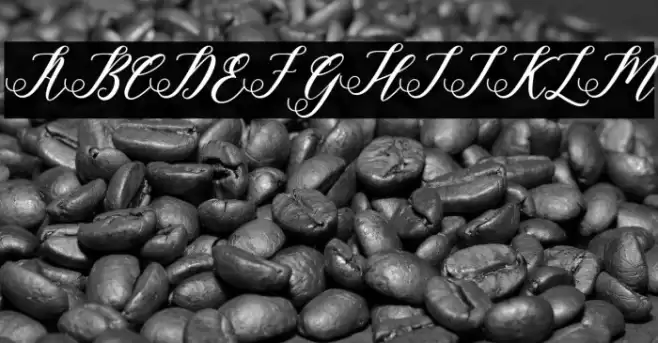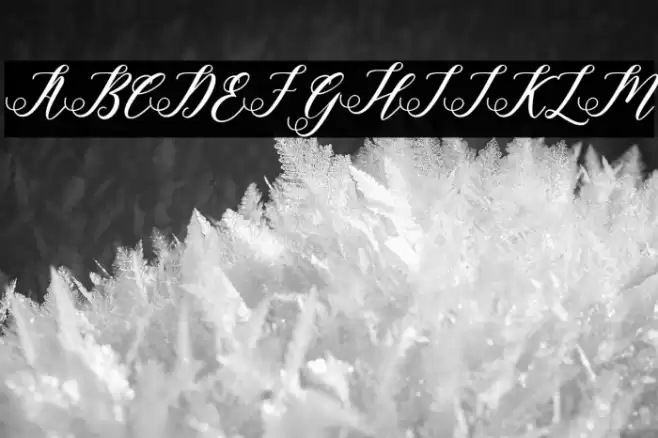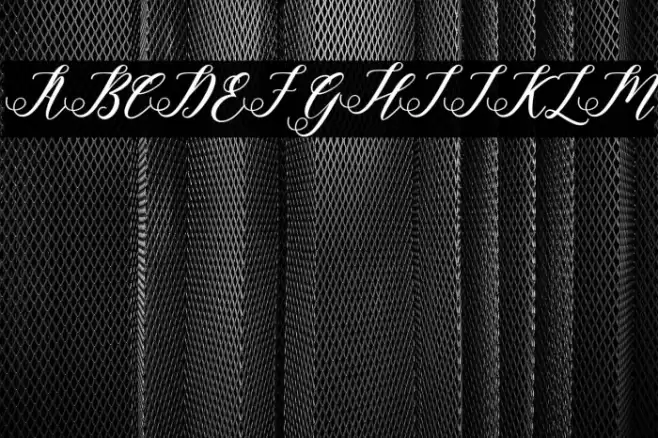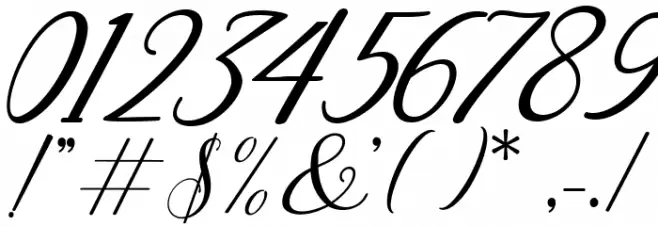
halley Font
halley Description
This elegant script font features a flowing, cursive style with intricate loops and swashes, giving it a sophisticated and artistic appearance. The uppercase letters are adorned with decorative flourishes, while the lowercase letters maintain a smooth, connected flow. The numerals are stylishly curved, complementing the overall aesthetic. This font exudes a sense of grace and refinement, making it ideal for formal and creative projects. The special characters are thoughtfully designed to match the ornate style, ensuring consistency across all elements.
An elegant script font with flowing, decorative swashes and intricate loops from Uncategorized fonts.
- Font: halley
- Proposed Projects: Ideal for wedding invitations, elegant branding, greeting cards, and artistic posters.
- Use Case: Logos, Invitations, Artistic projects